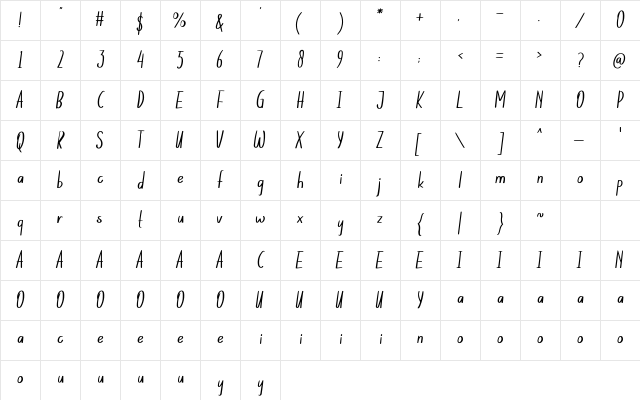
Love Letter Regular
Foundry: PINISIART
Designer: Sahirul PINISIART
Design Context for Love Letter
Love Letter is a composed and adaptable typeface that performs quietly and consistently across a wide range of design contexts.